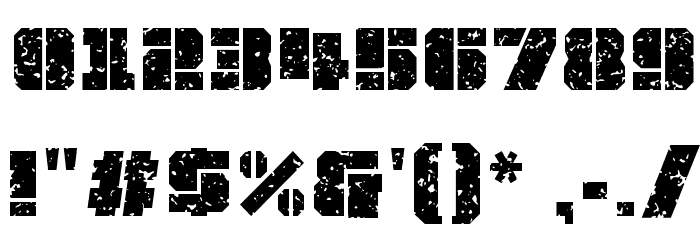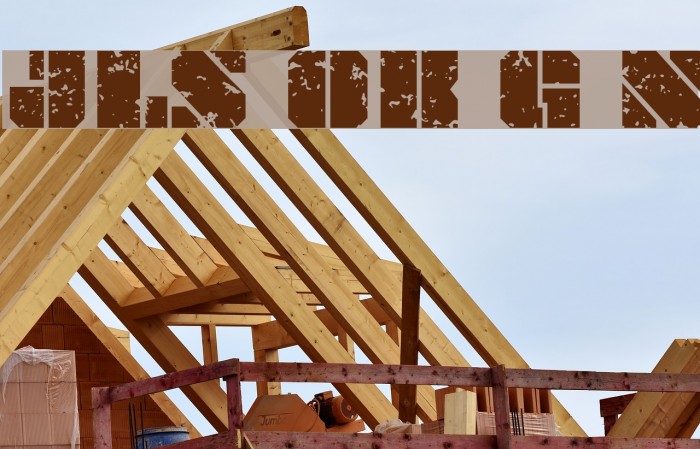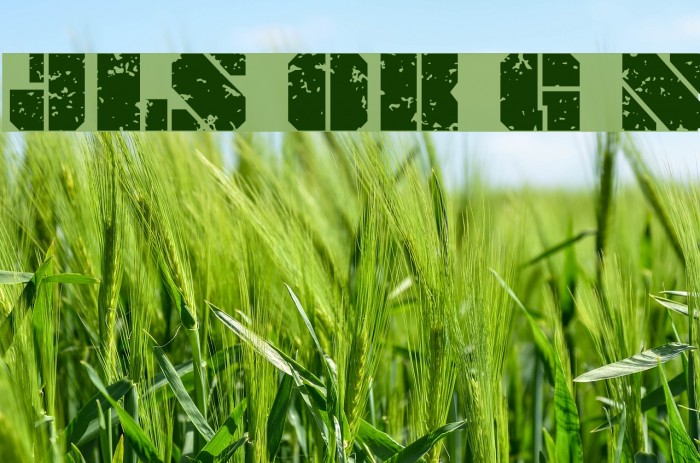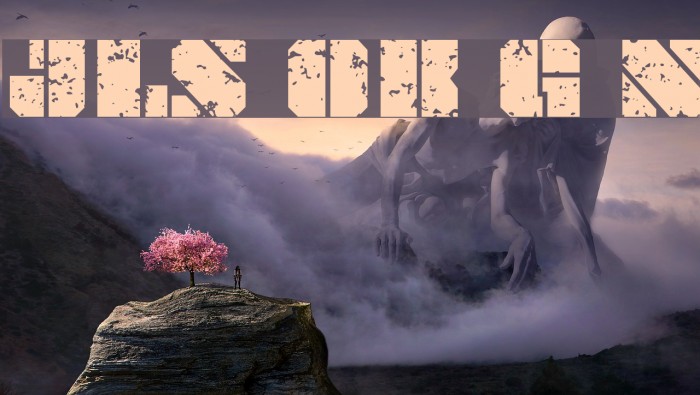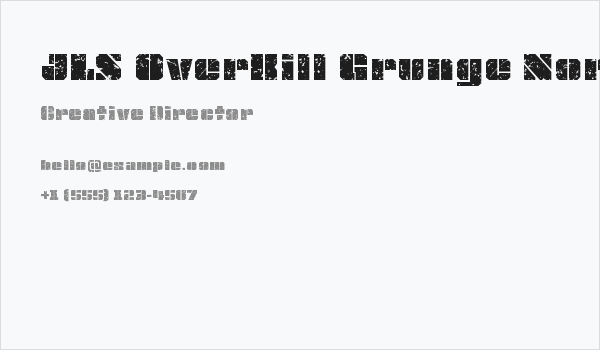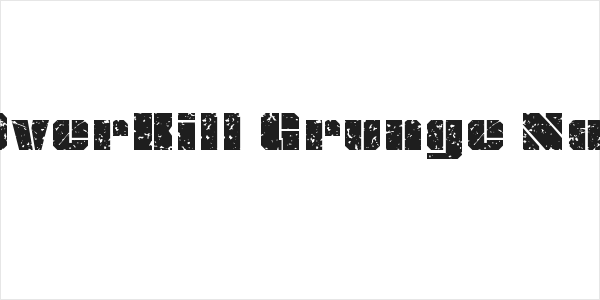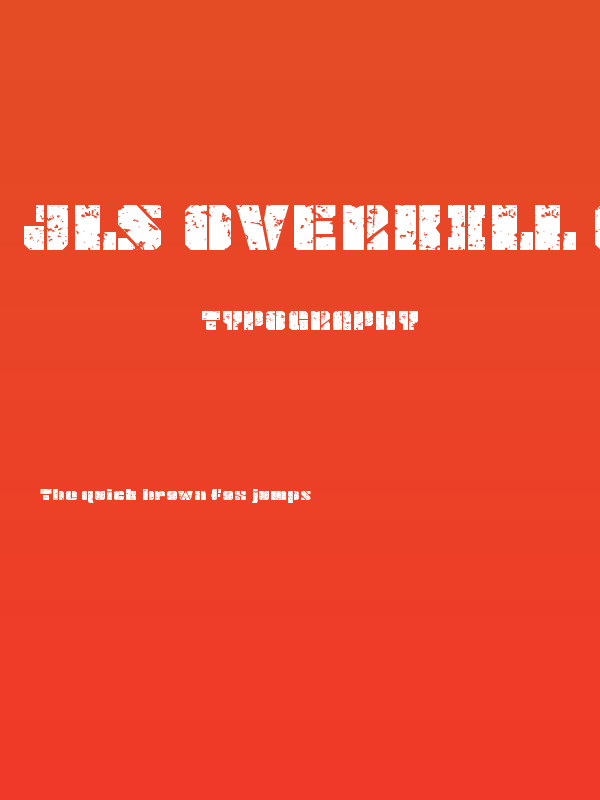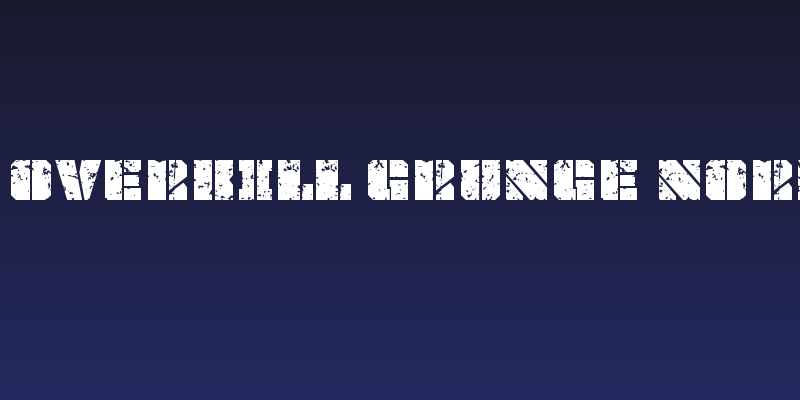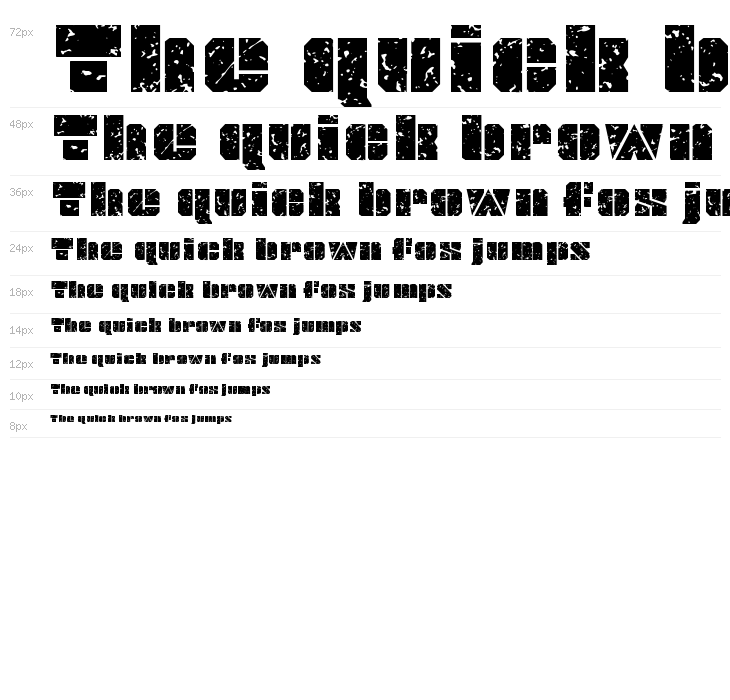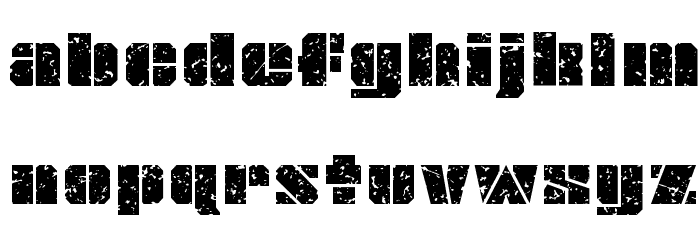
JLS OverKill Grunge Normal Font
JLS OverKill Grunge Normal Description
This font features a bold, distressed style with a grunge aesthetic. Each character appears as if it has been weathered or eroded, giving it a rugged and edgy appearance. The uppercase and lowercase letters maintain a consistent thickness, while the numbers and special characters follow the same distressed pattern. The overall look is bold and impactful, making it suitable for designs that require a strong, rebellious feel. The texture within each character adds depth and visual interest, making it stand out in any project.
| Overall Style | Grunge, Edgy |
| Proposed Projects | Ideal for music album covers, posters, streetwear branding, and edgy graphic designs. |